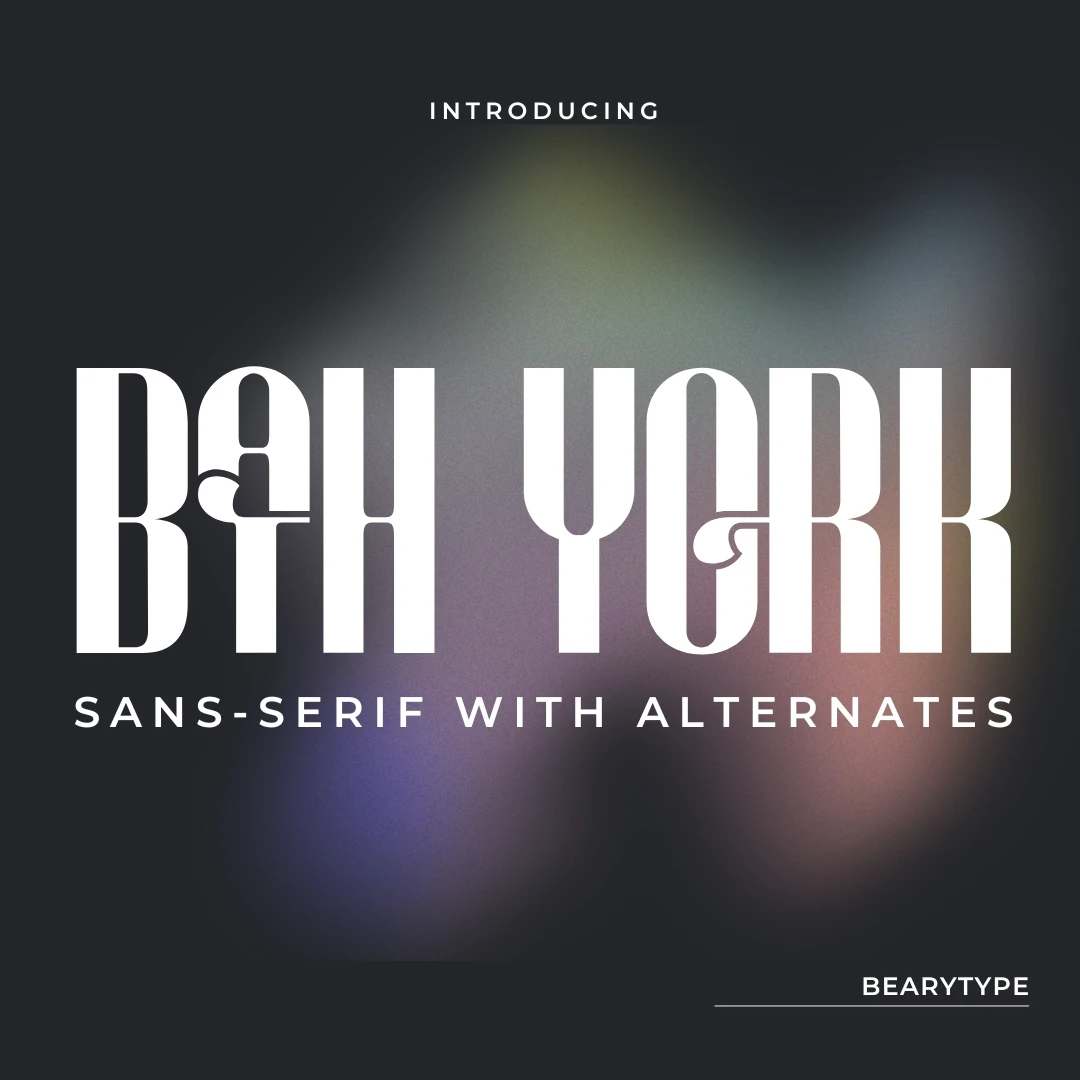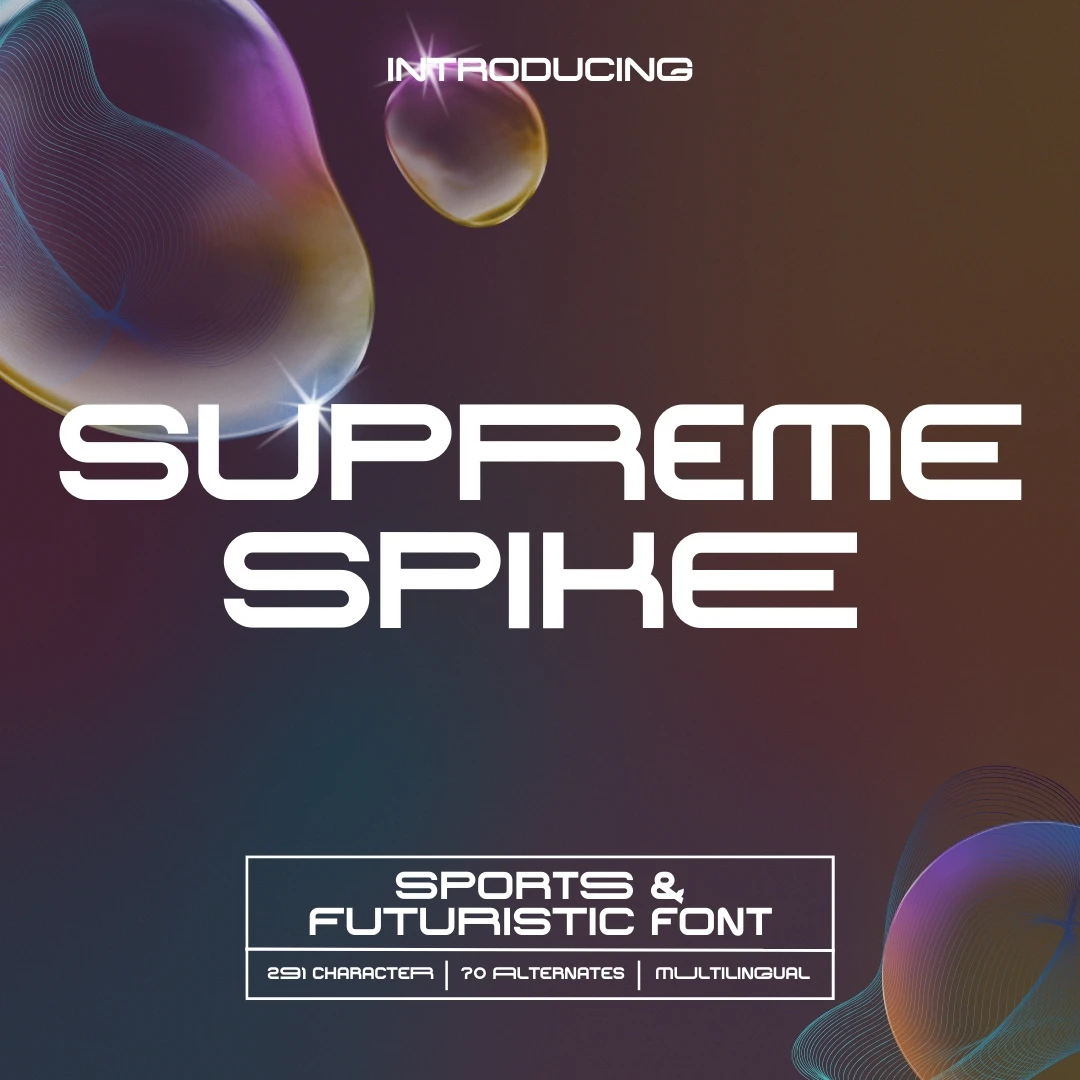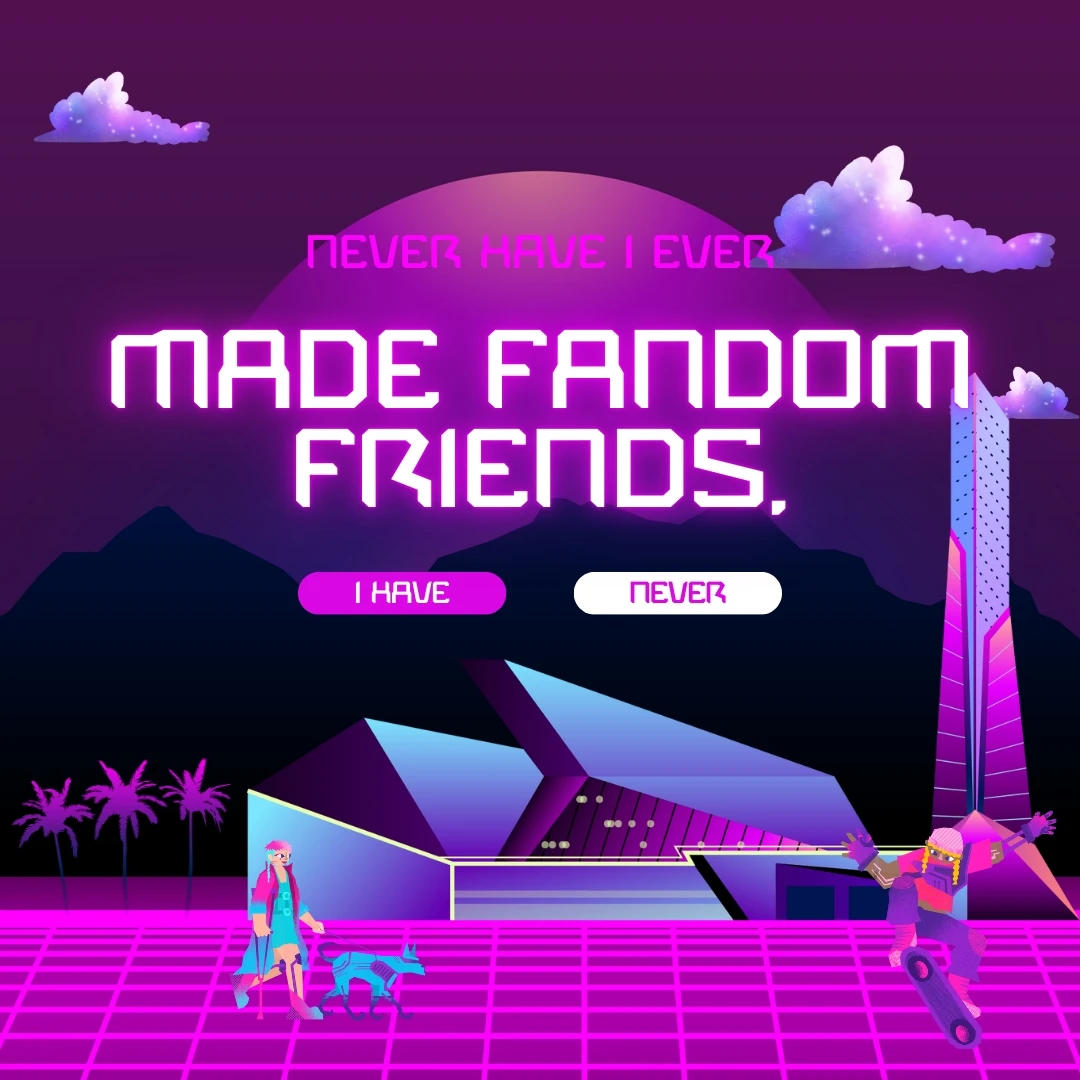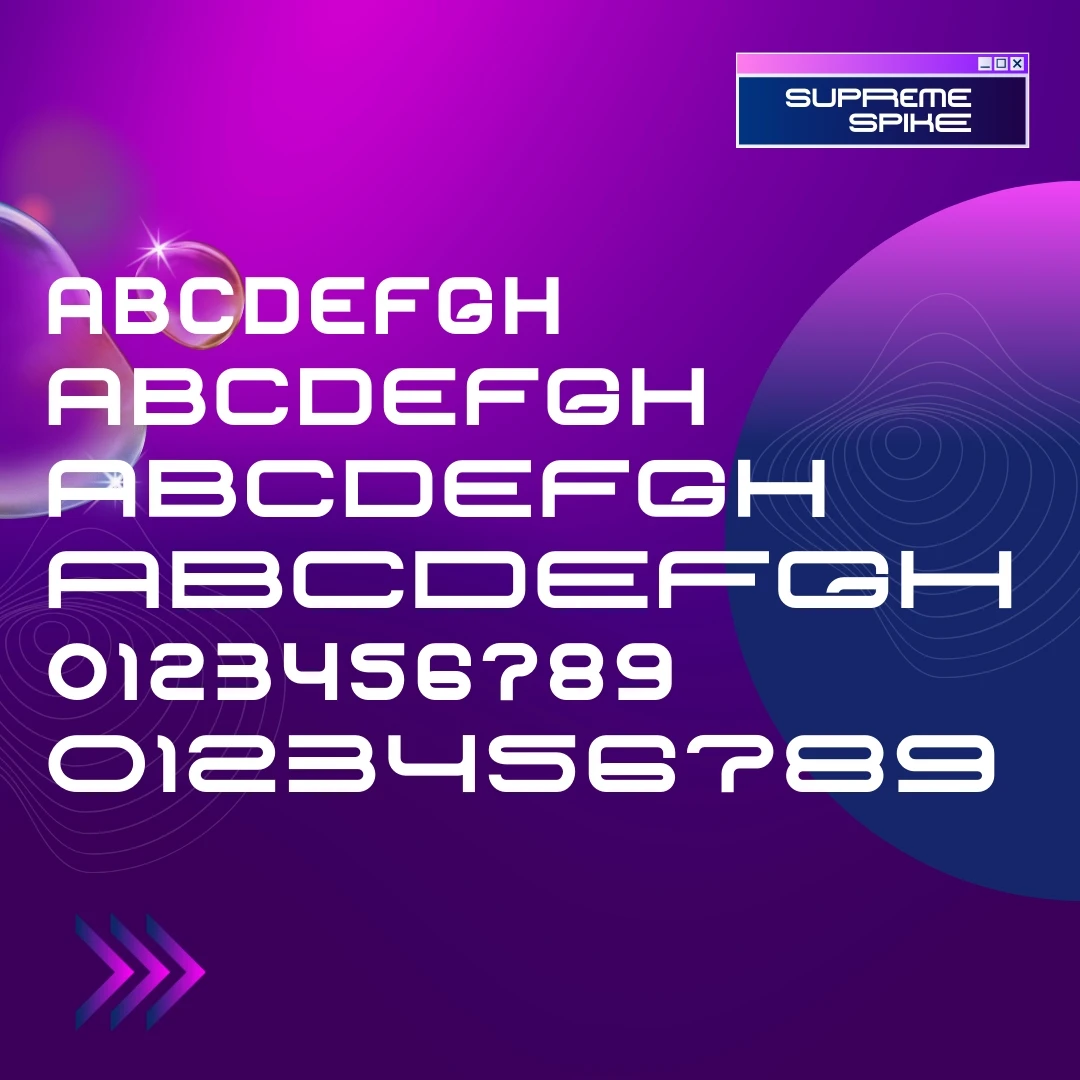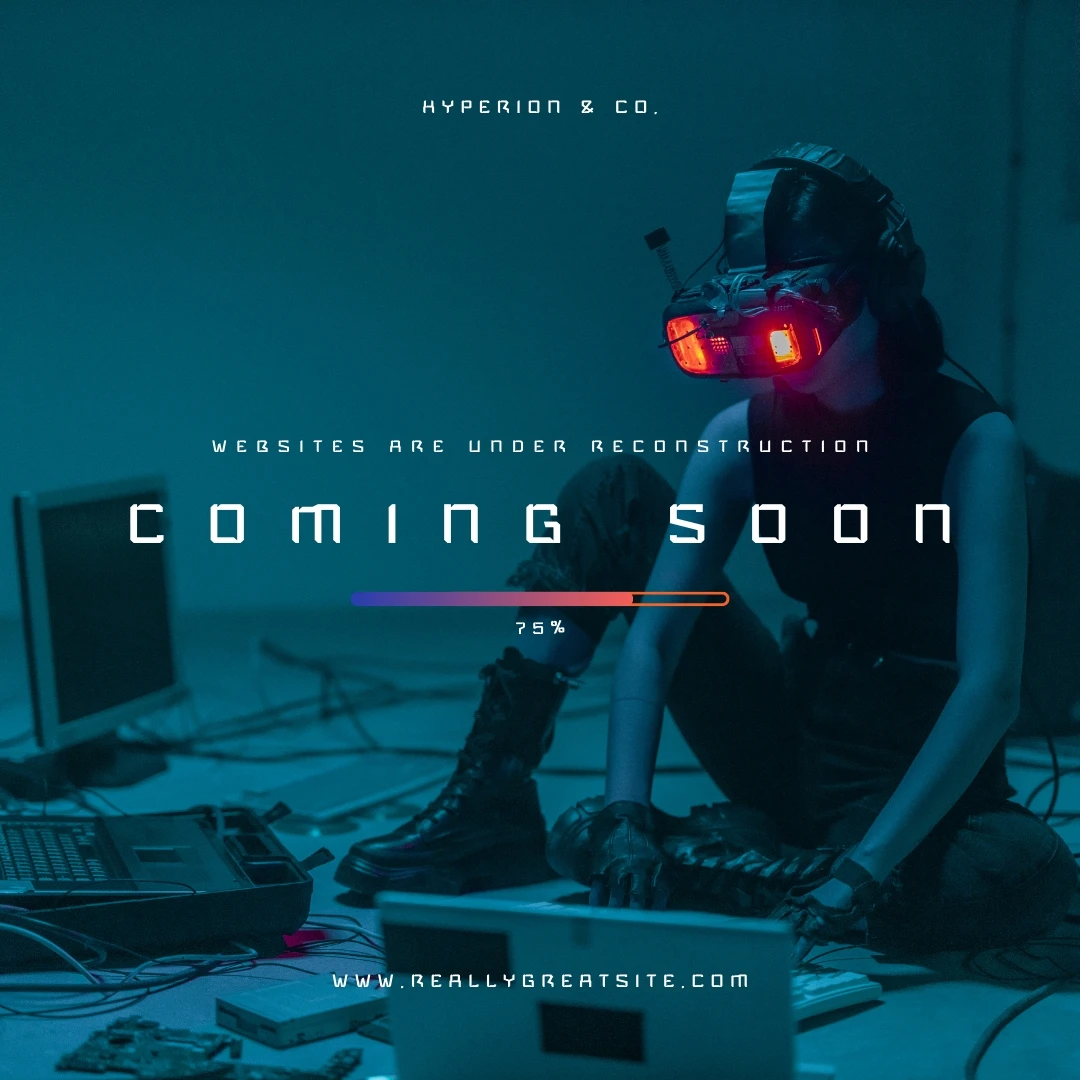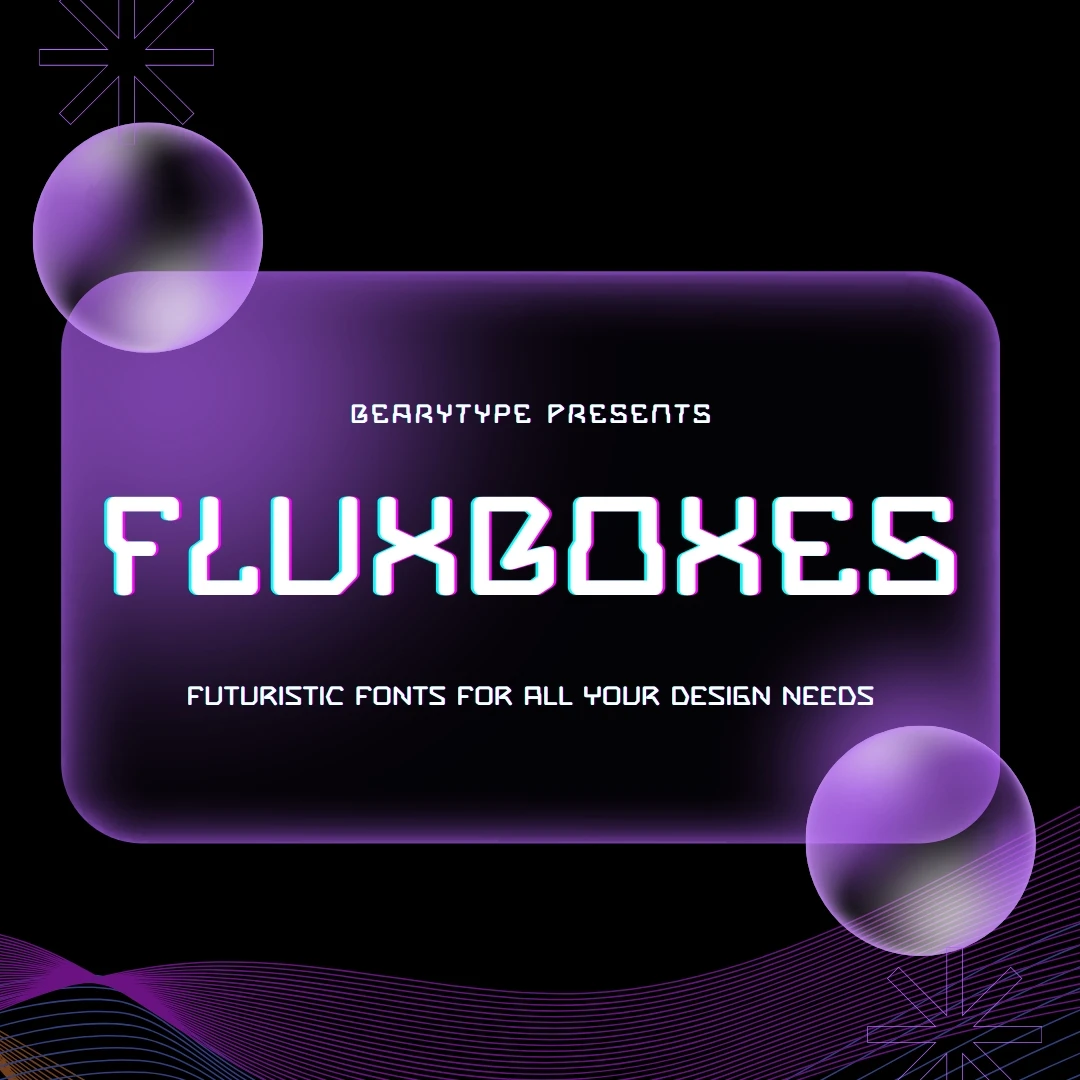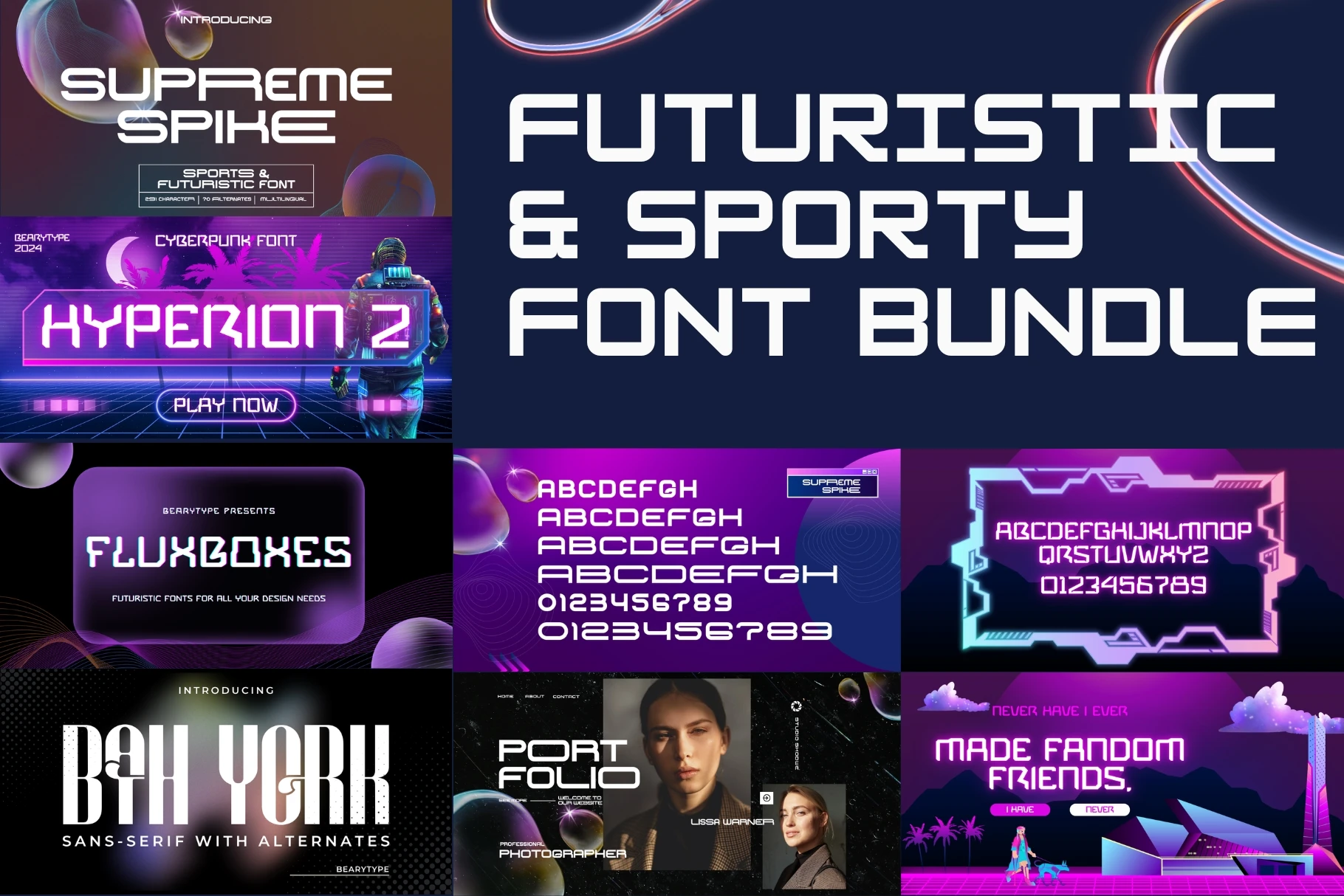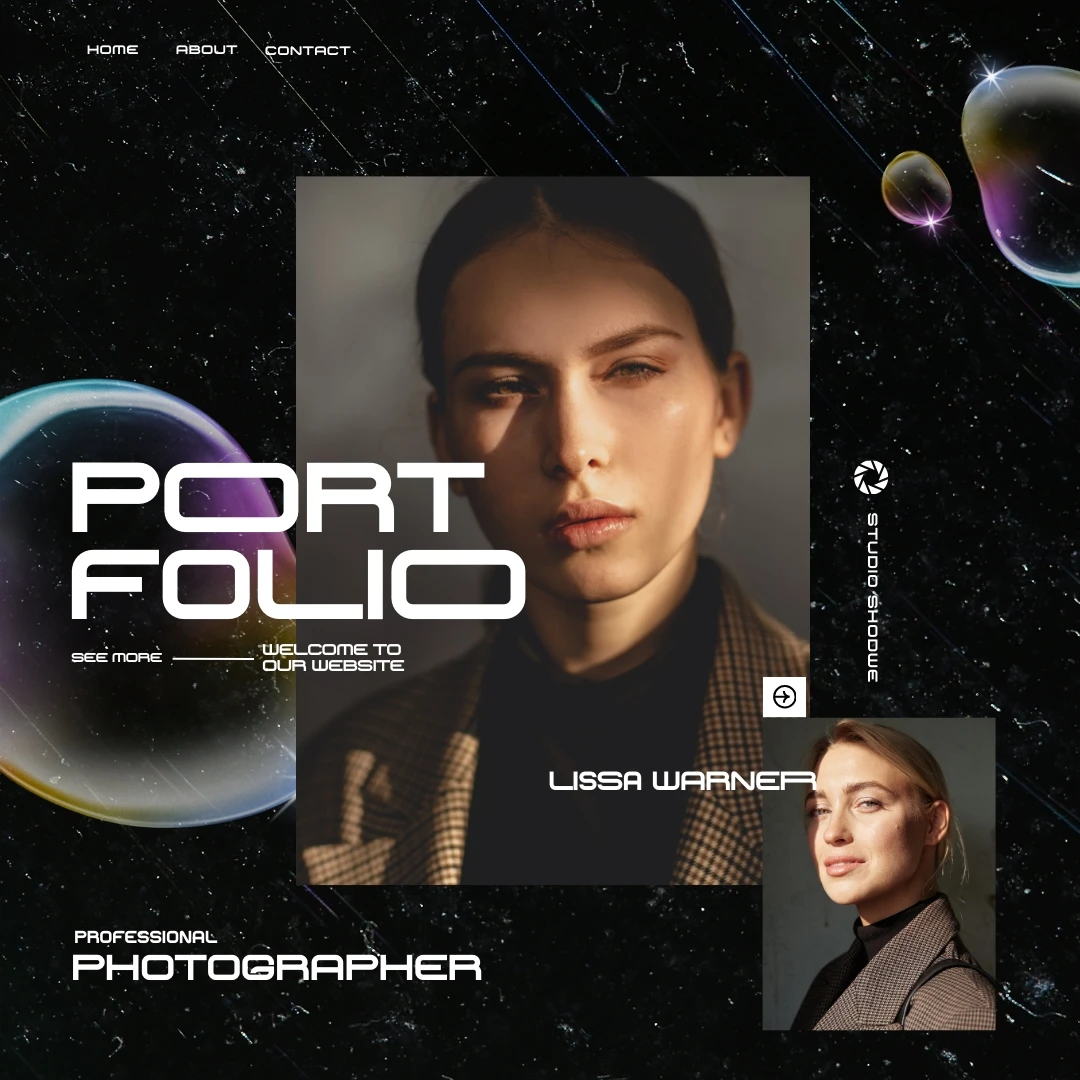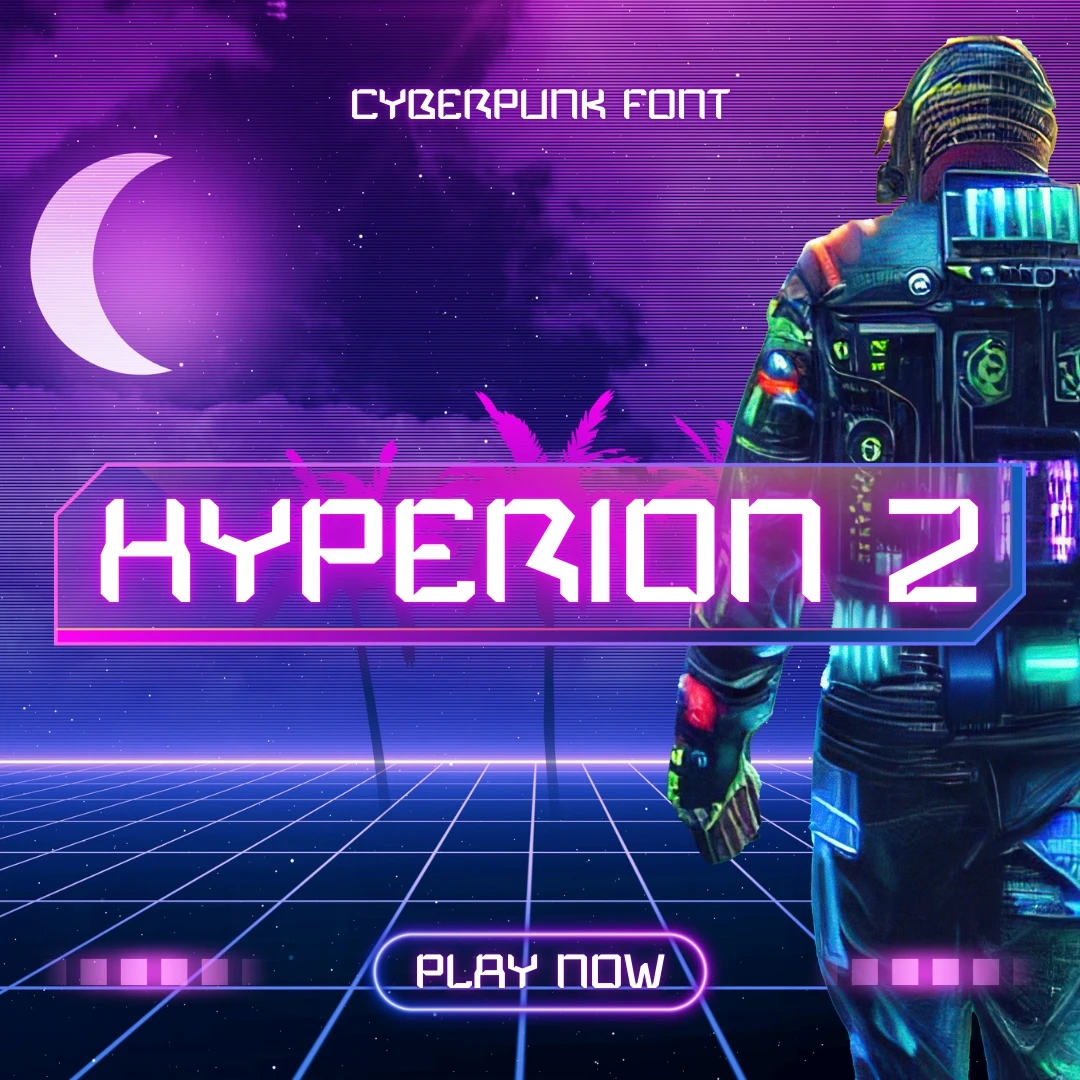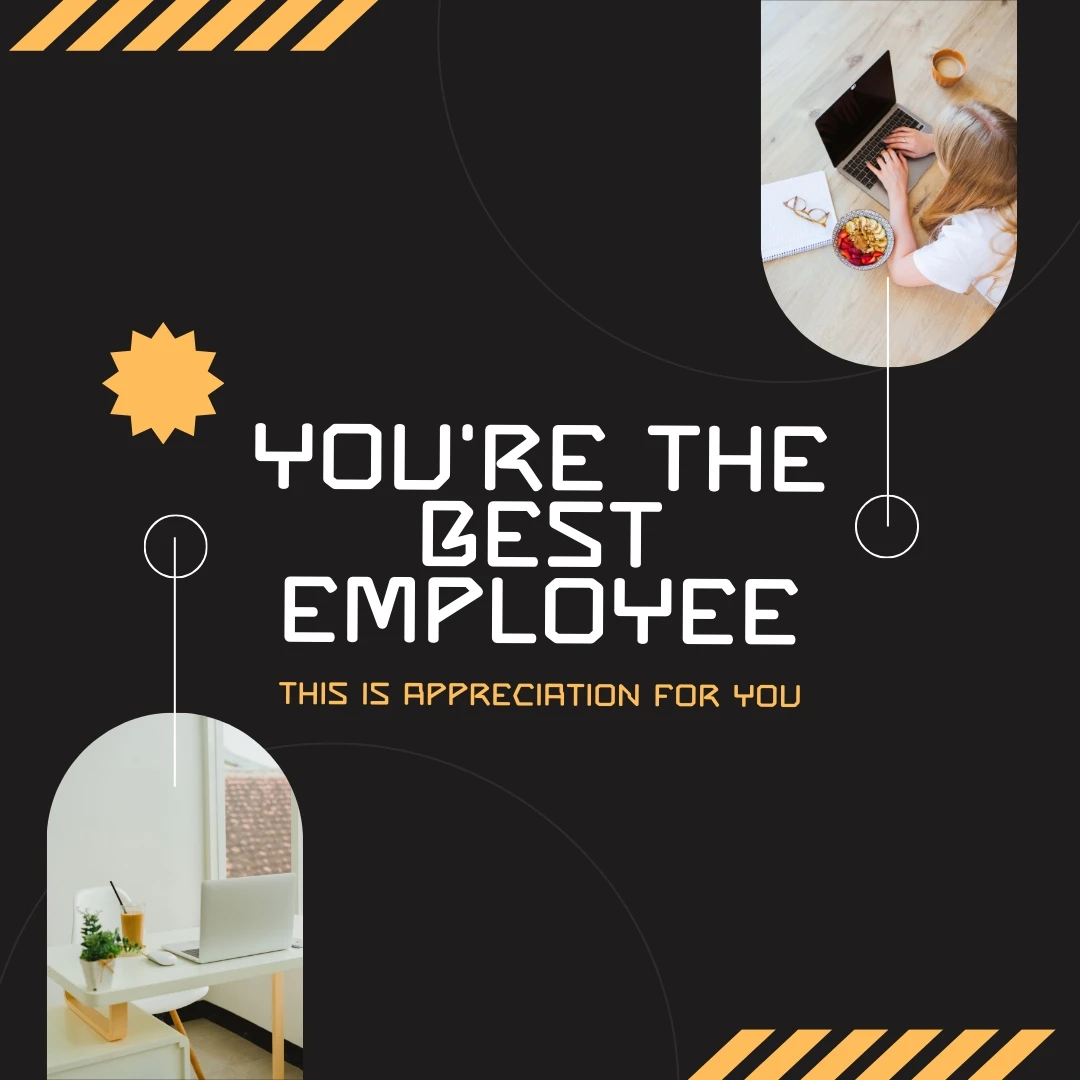
Discover the perfect blend of futuristic innovation and sporty energy with our 4-font bundle! Each font in this collection is meticulously crafted, boasting its own unique charm and character. Whether you're designing for high-tech projects, sports branding, or sleek modern visuals, this bundle has everything you need to make your creations stand out.
Heres why youll love this bundle:
4 Distinctive Fonts: Each font comes with its own unique style, perfect for different futuristic and sporty themes.
Versatile Use: Ideal for posters, logos, team merchandise, tech presentations, and more.